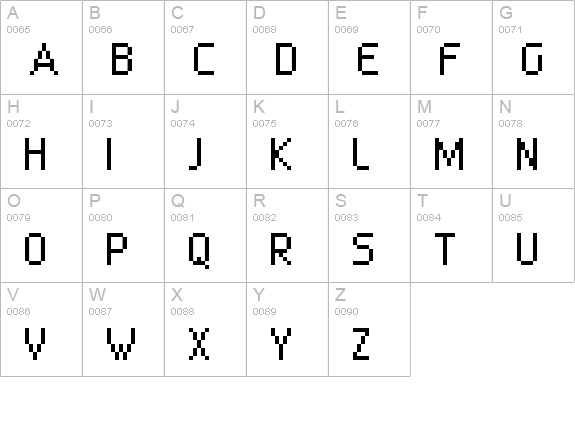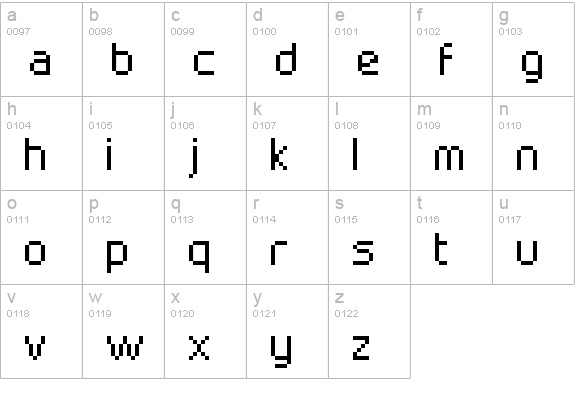
superbly_10_01 Font Details
Introducing Superbly_10_01 font, a stunning typeface that exudes elegance and sophistication. This font is the perfect balance of modernity and classic charm, making it a versatile choice for a wide range of design projects. With its sleek lines and unique character shapes, Superbly_10_01 adds a touch of refinement to any text. What makes Superbly_10_01 even more exceptional is that it is available for free download at FontsMarket.com. This means you can easily access this high-quality font without any cost, making it a valuable addition to your font collection. Whether you're designing a logo, creating marketing materials, or working on a personal project, Superbly_10_01 is sure to elevate your design and leave a lasting impression. Download it today and experience the beauty and versatility of this exceptional font.